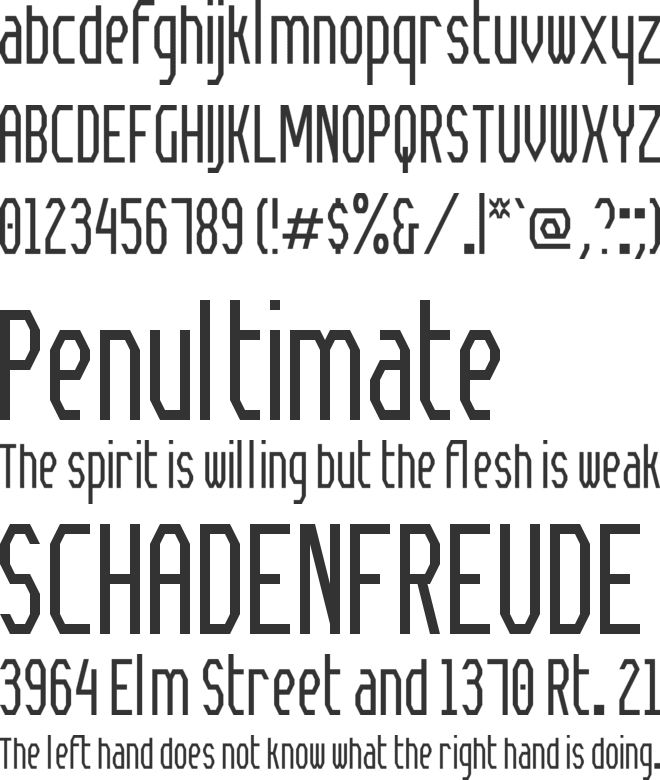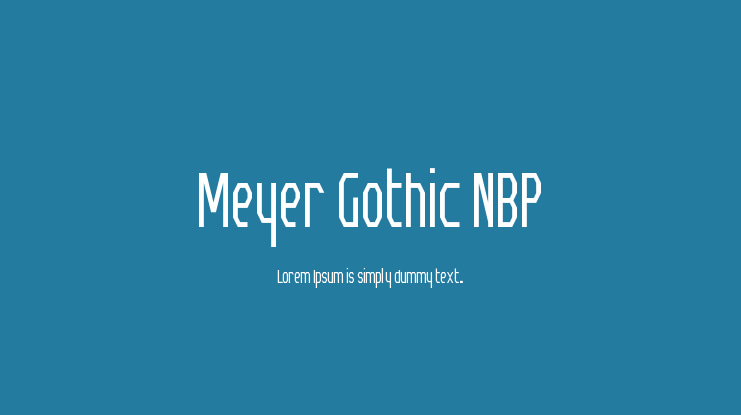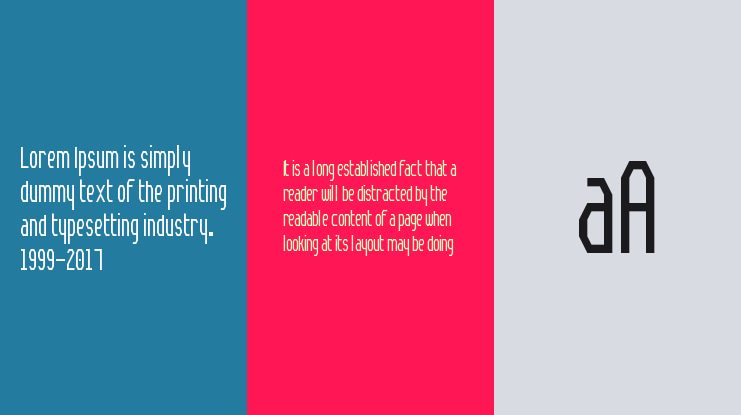
Meyer Gothic NBP Font Family
Nate Halley
Narrow angular type designed for main text (between 11 and 18pt) on computer monitors (looks better on CRTs but no one uses those anymore :P )
Also contains a unicase version for headings and titles.